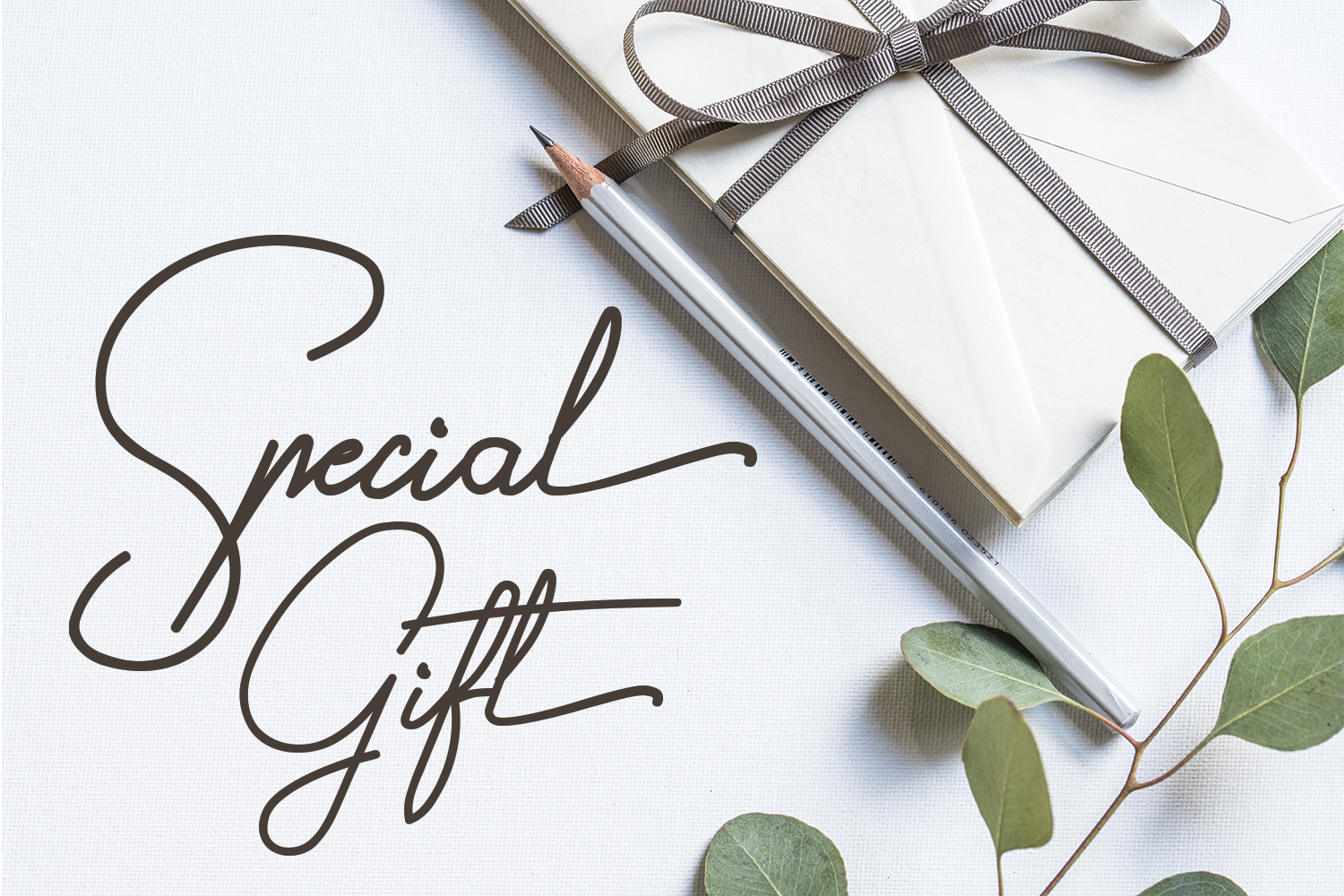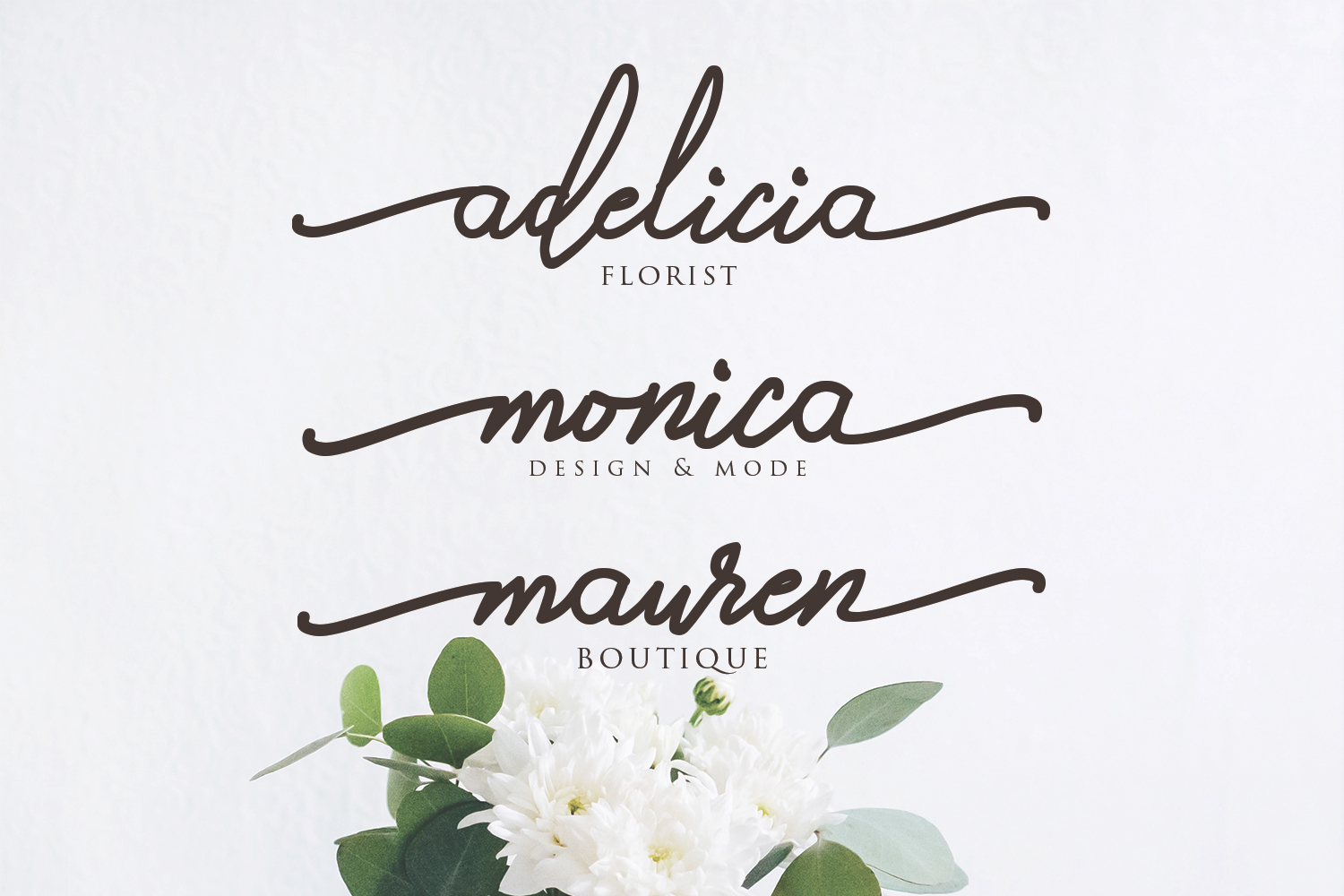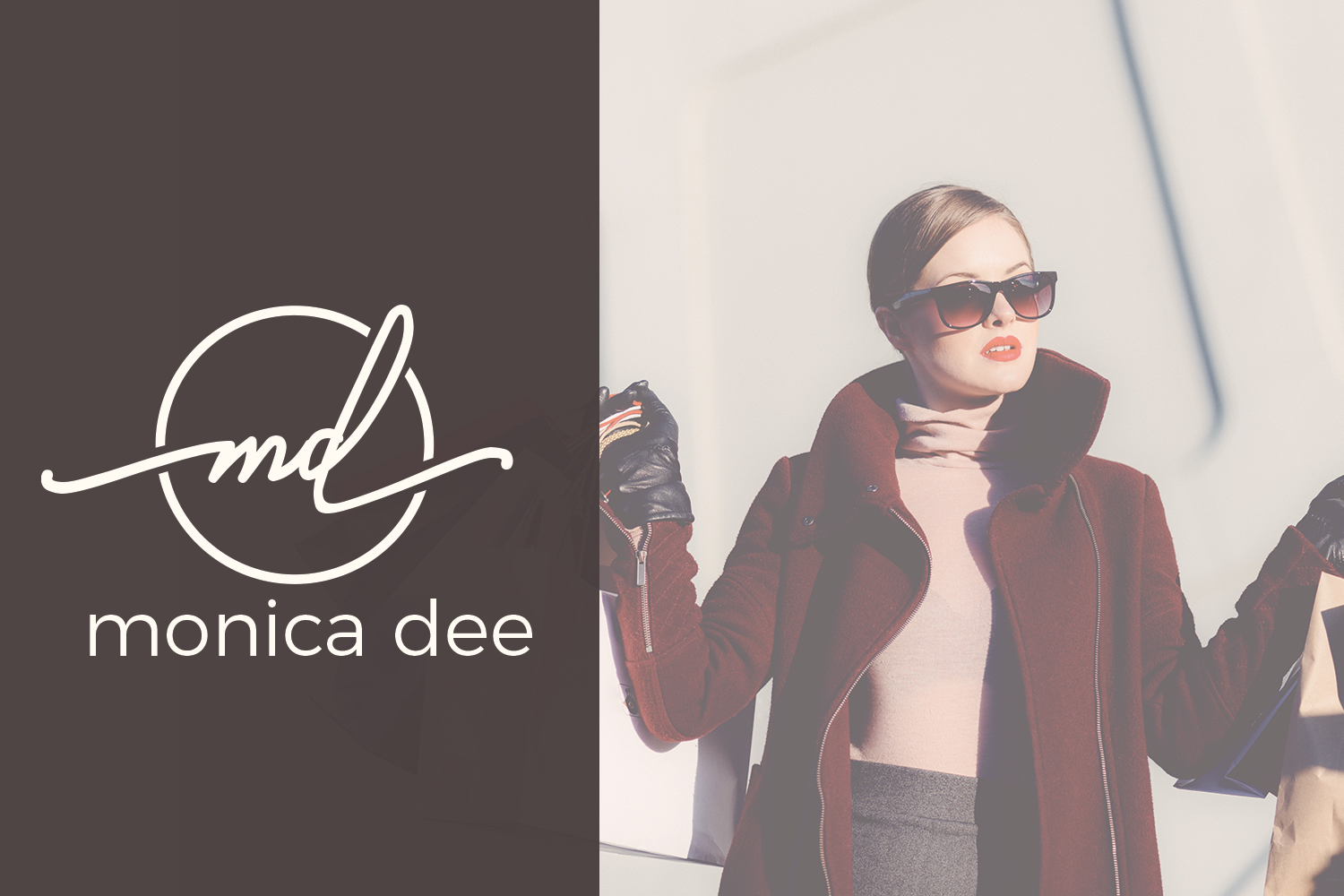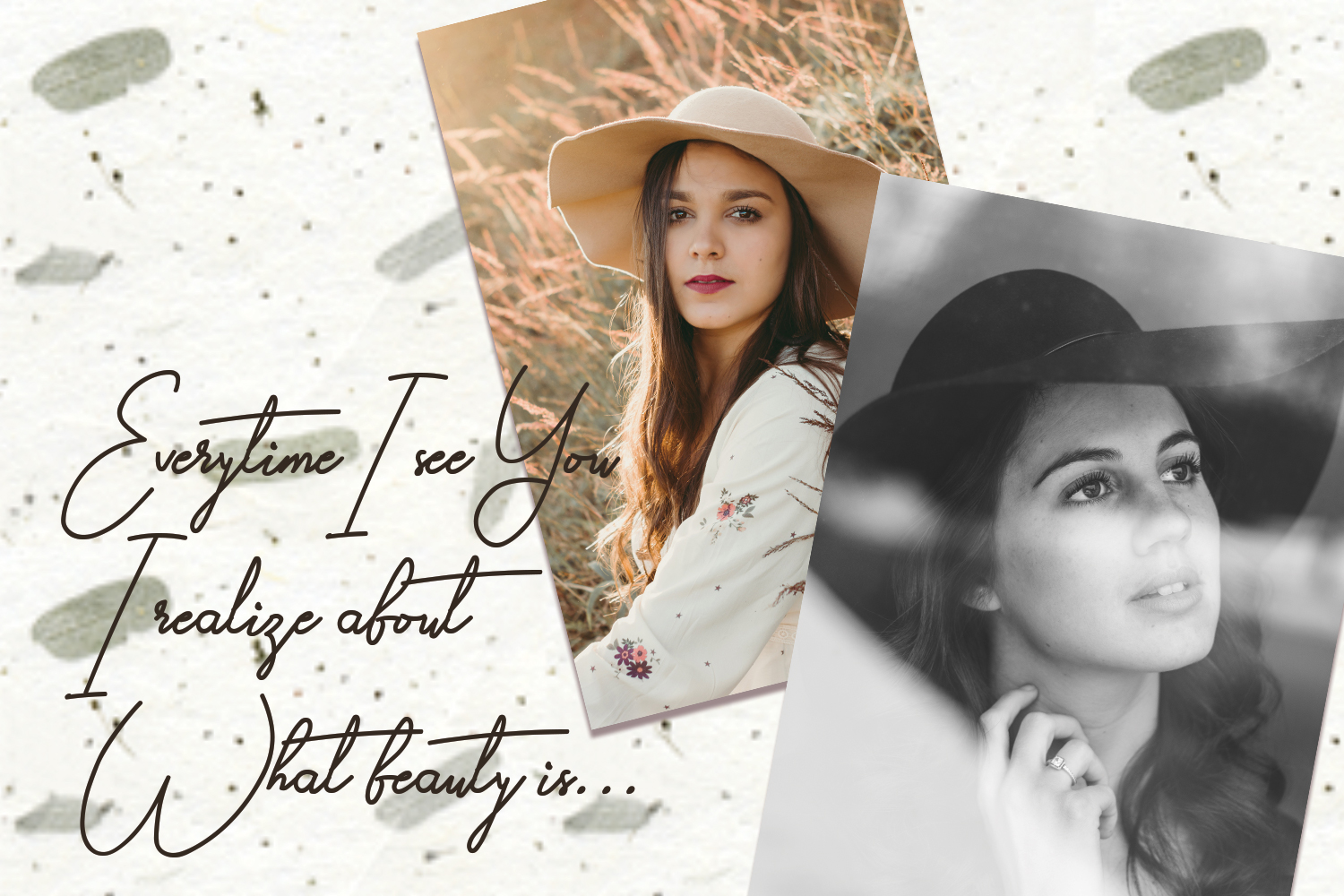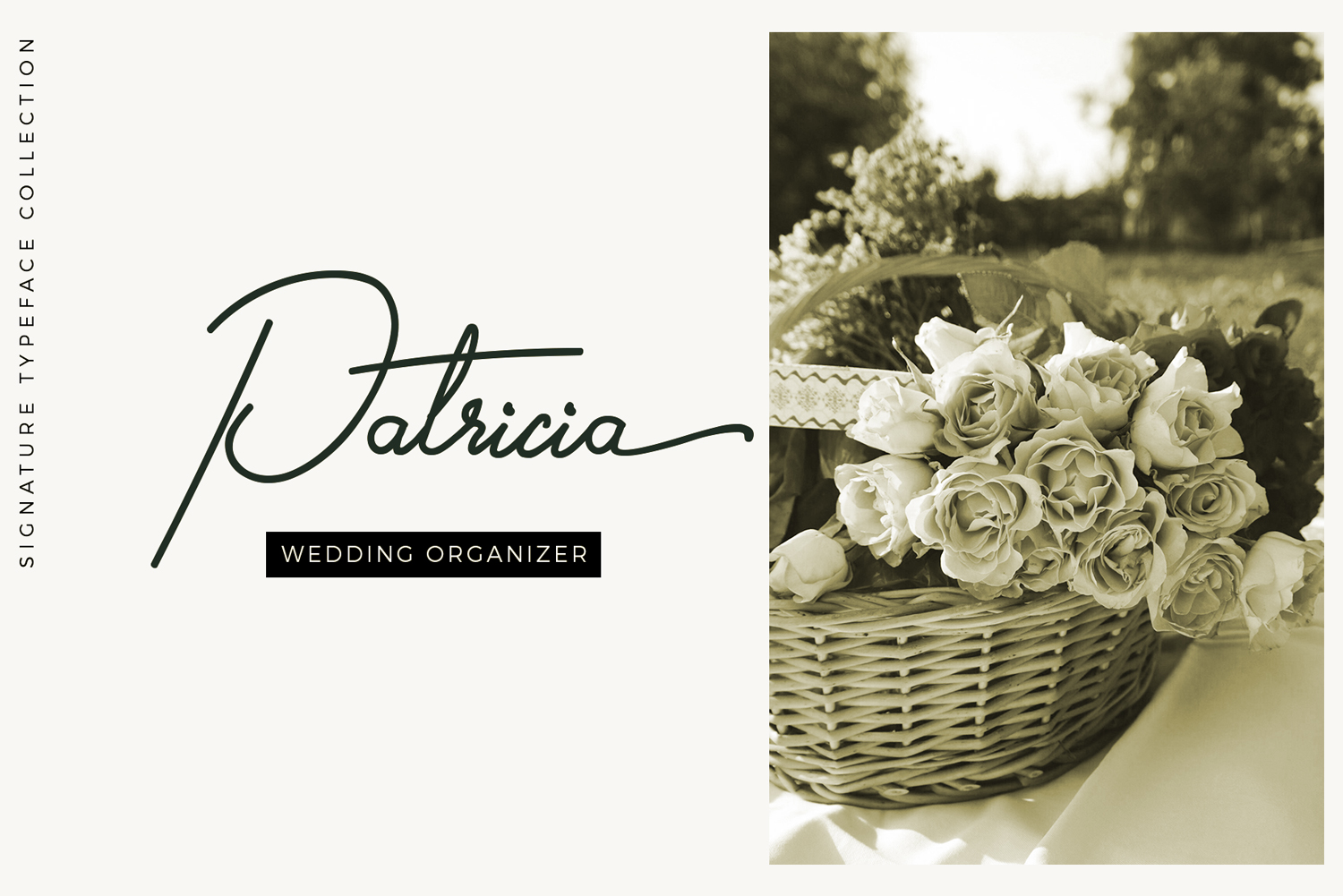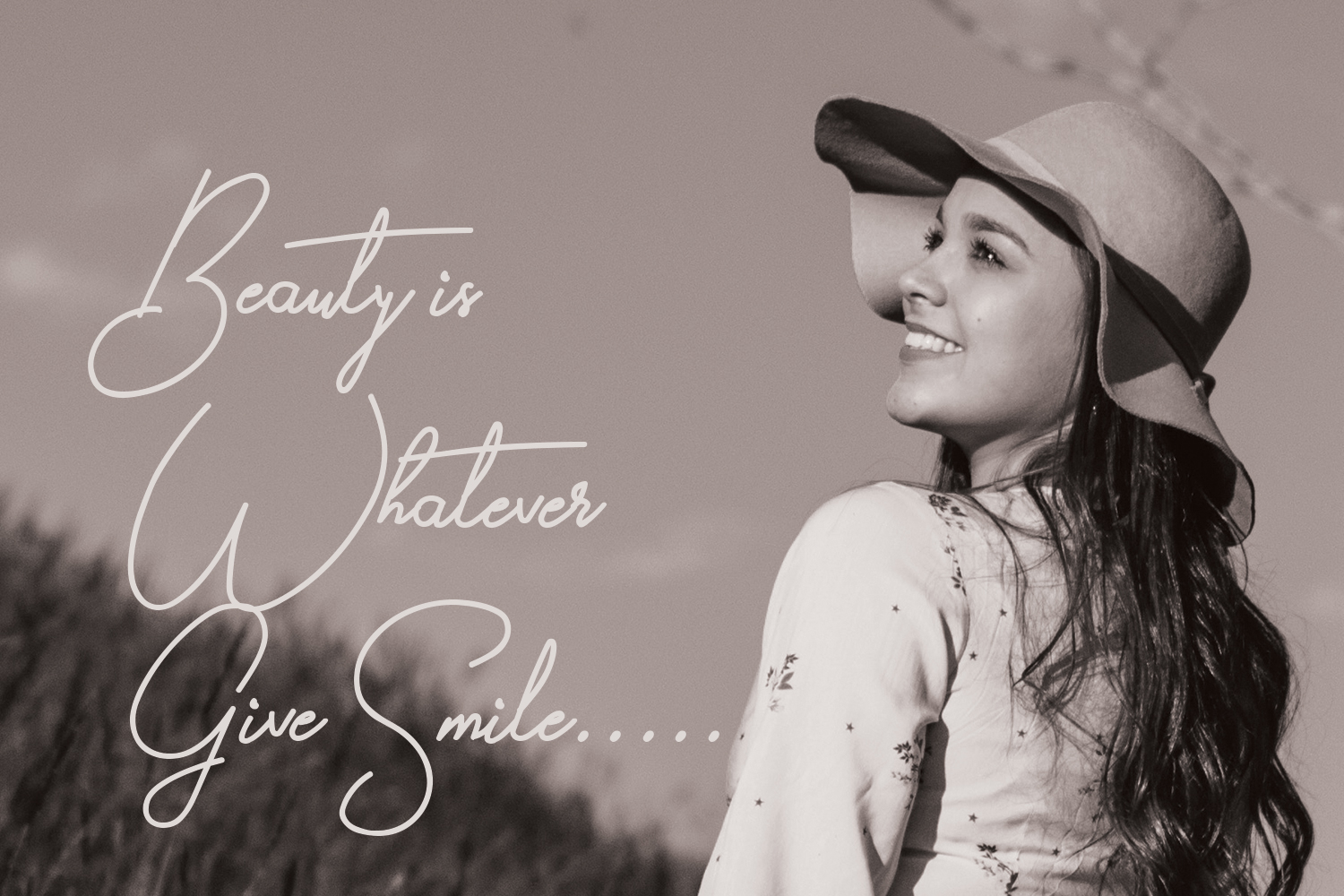
Unlock the Flair of Your Designs with Gilberta Font
You know that feeling when you’re working on a project and you just can’t seem to find the right font to tie everything together? It’s like the missing piece of a puzzle, and once you find it, everything falls into place. For many designers, that missing piece is the Gilberta Font – a cool and casual signature font that adds a touch of sleekness and personality to any design.
Designed to be clean and monoline, the Gilberta Font is perfect for giving your projects a more personalized feel. Whether you’re working on a branding project, a social media campaign, or a digital product, this font is a valuable addition to your design toolkit. With its unique style and versatility, the Gilberta Font is a must-have for designers who want to take their designs to the next level.
- Unique Characteristics: Elegant script font with a touch of modernity, ideal for creative and professional applications
Design Review: Gilberta Font
I’ve had the chance to work with the Gilberta font, and here’s my honest take on it.
- Casual yet Elegant Feel**: Gilberta font has a unique blend of casual and elegant vibes, making it perfect for creative projects.
- High Legibility**: This font is highly legible, even at smaller font sizes, which is a must for any designer.
- Great for Headings**: Gilberta font is perfect for headings, as it grabs attention without being too overwhelming.
- Limited Font Family**: Gilberta font is a single font family, which might not be ideal for projects requiring multiple font styles.
- Not Suitable for Body Text**: While Gilberta font is great for headings, it’s not the best choice for body text due to its unique style.
Overall, Gilberta font is a great addition to any designer’s toolkit. While it has its limitations, its unique style and high legibility make it perfect for creative projects. I’d recommend using it for headings and titles, but be mindful of its limitations when it comes to body text.
Tips for Getting the Most Out of Gilberta Font
Use Gilberta Font for designs that require a unique and elegant touch. It’s particularly suitable for:
- Luxury brand logos and packaging
- High-end fashion and beauty designs
Gilberta Font is commonly used in:
- Designing wedding stationery and invitations
- Creating luxury brand logos and packaging
- Developing high-end fashion and beauty designs
Alternatives to Gilberta Font
Playfair Display is an elegant and luxurious serif font, ideal for creating a high-end and sophisticated look. It features intricate details and a classic feel, making it perfect for use in magazines, fashion brands, and other luxury products.
Compared to Gilberta Font, Playfair Display has a more ornate and luxurious feel, while Gilberta Font is more modern and minimalist. Playfair Display is suitable for formal and high-end designs, whereas Gilberta Font is better suited for everyday use.
Lato is a modern sans-serif font that is clean, simple, and highly legible. It is ideal for use in digital products, such as apps, websites, and software, where clarity and readability are essential.
Compared to Gilberta Font, Lato is more straightforward and minimalist, while Gilberta Font has a more distinctive and quirky feel. Lato is suitable for digital products, whereas Gilberta Font is better suited for print materials.
Merriweather is a classic serif font that is highly legible and easy to read. It features a traditional feel and is ideal for use in books, newspapers, and other print materials.